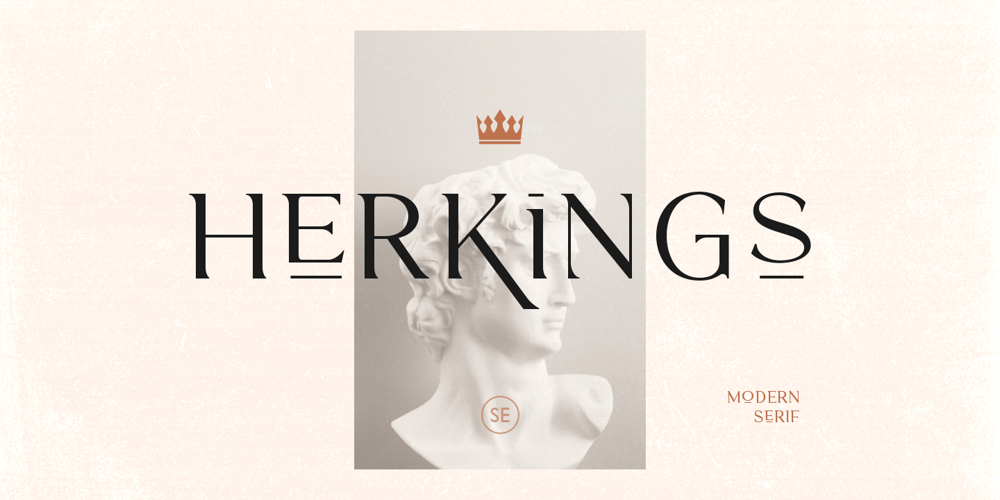
Herkings Font Family was designed by Sarid Ezra and published by Sarid Ezra. Herkings contains 1 styles and family package options. Herkings is a serif based font with unique lowercase & uppercase that will make your design looks minimalist yet modern. You can use this font for any purpose, especially for logotype. This font also suitable for branding. You can mix and match the uppercase and lowercase to make your logo more unique and stand-out. This font also support multi language!